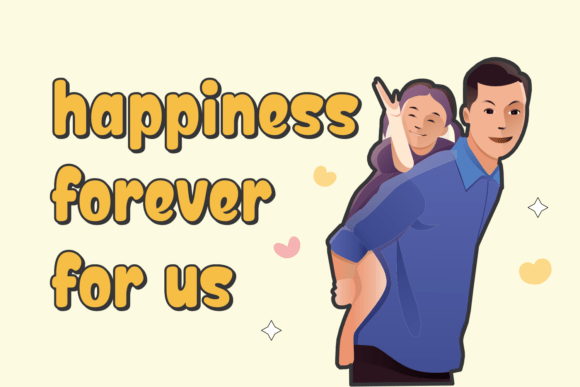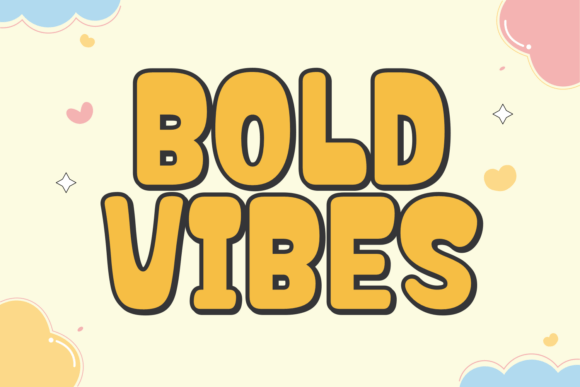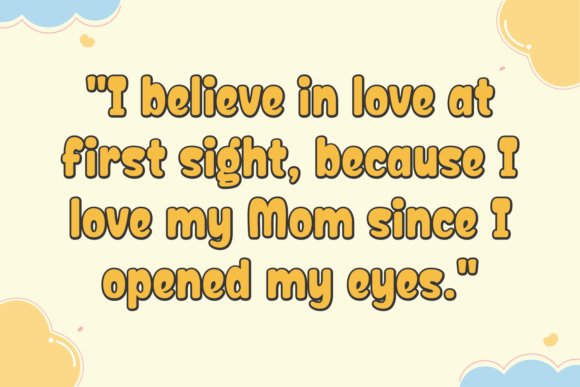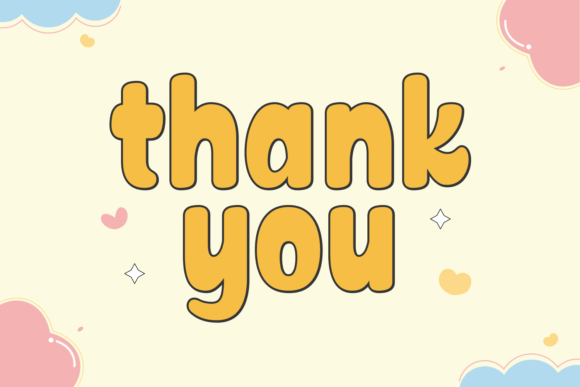
Babe Mama Font
Introducing Babe Mama, set that beautifully meshes elegance and whimsicality. This carefully crafted typography features an array of styles, from the modern to the vintage, naturally bridging the classic aesthetics of the 70s, 80s and 90s with a contemporary vibe. Babe Mama blossoms with handwritten fonts that are personable yet elegant, perfect for projects that require a human touch.